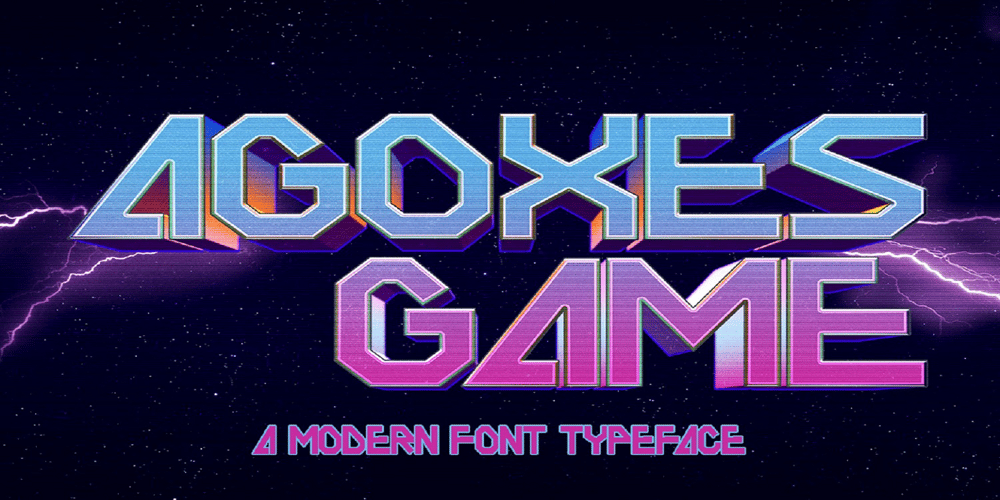
Agoxes Game Font Family was designed by Saiful Anwar and published by Sealoung. Agoxes Game contains 1 styles and family package options. Agoxes Game is an awesome display font. It features an authentic style that makes it perfect for games, posters, movies, magazines and any design that requires a great look!